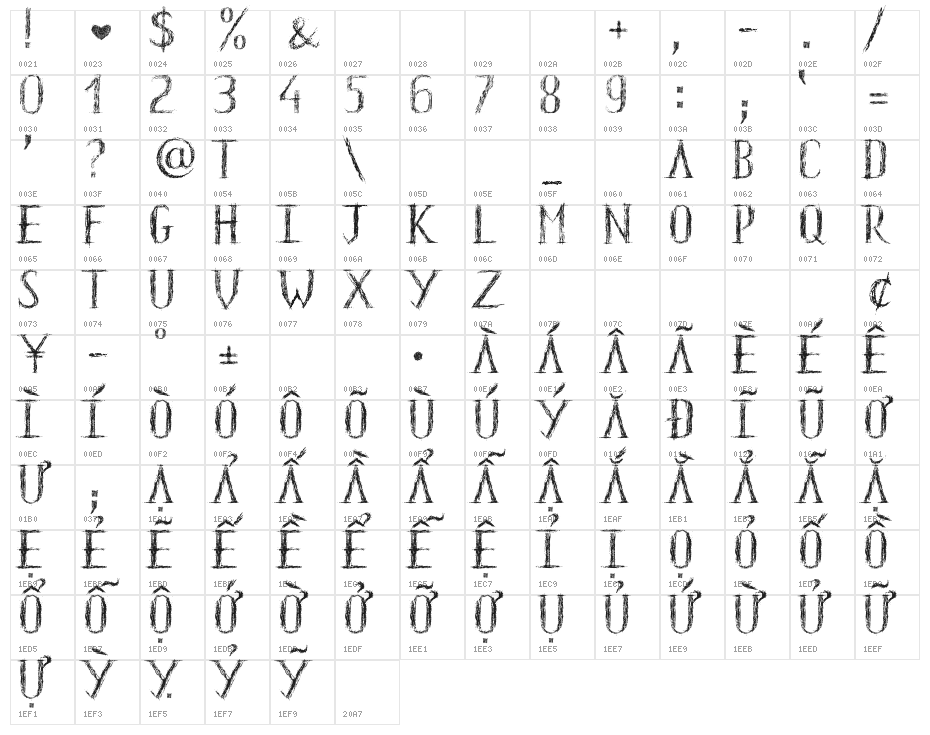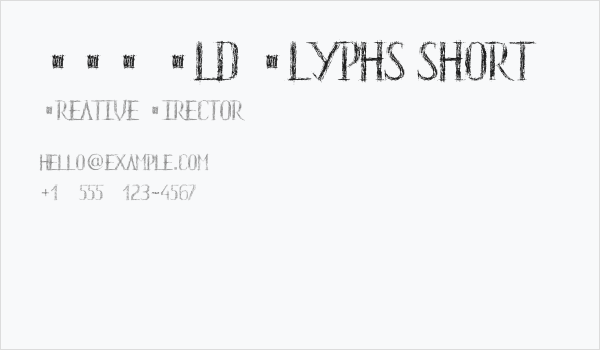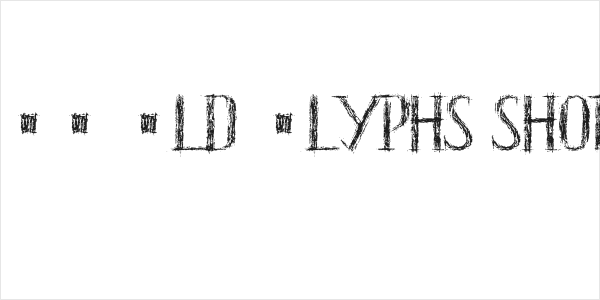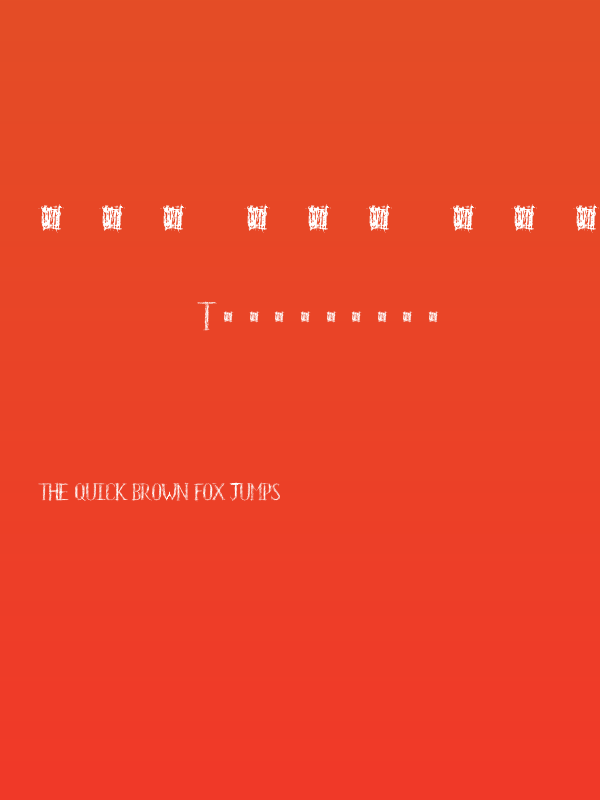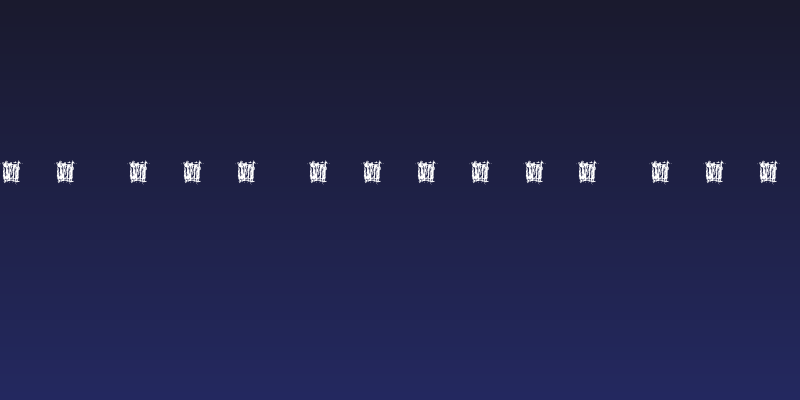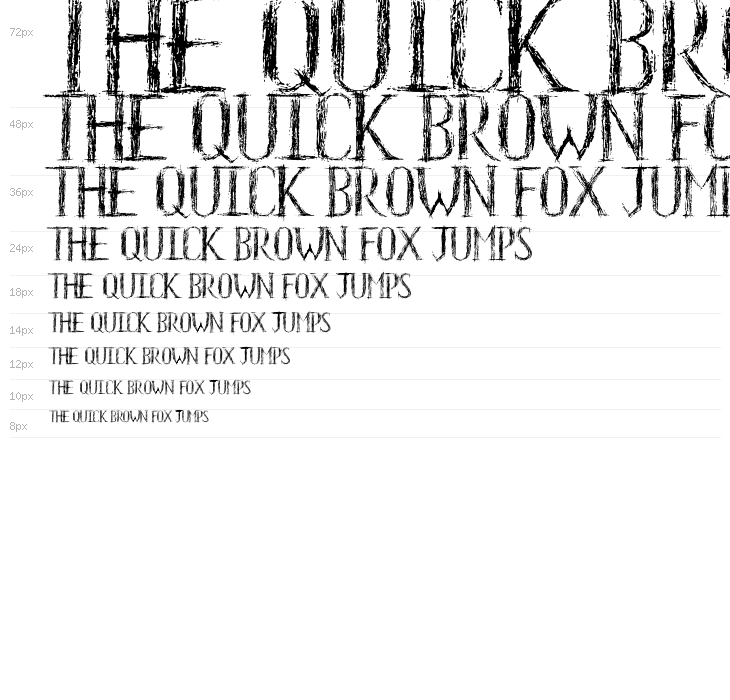
HKH Old Glyphs short Font
HKH Old Glyphs short Description
This font features a distressed, hand-drawn style that evokes a sense of vintage charm and rustic appeal. The characters are unevenly textured, giving them a unique, weathered look reminiscent of old woodcuts or ancient manuscripts. The uppercase letters are bold and commanding, while the numerals and special characters maintain the same rugged aesthetic. This font's distinctive appearance makes it ideal for projects that require a touch of antiquity or a handcrafted feel. Its irregular strokes and rough edges contribute to its overall character, making it stand out in any design.
| Proposed Projects | Ideal for vintage posters, rustic branding, historical-themed designs, and artisanal product packaging. |